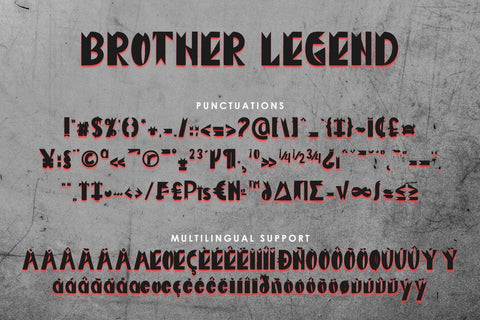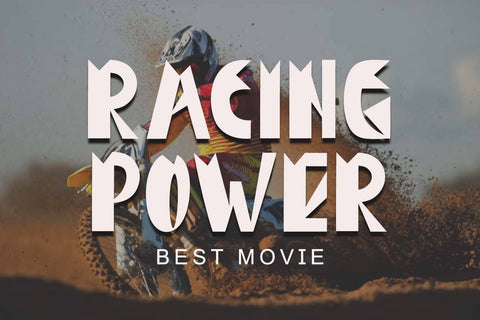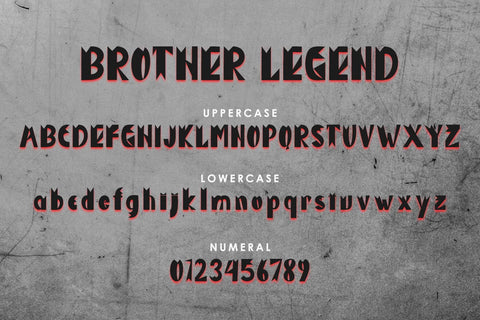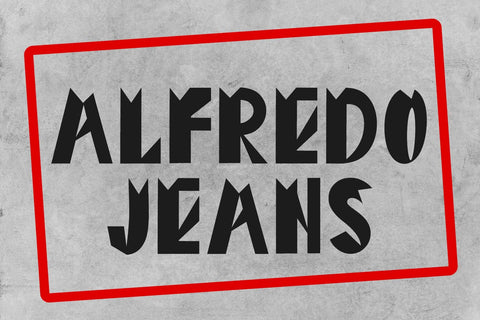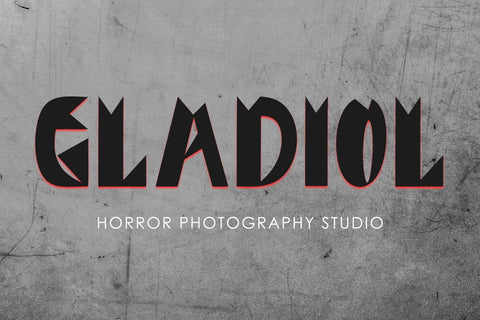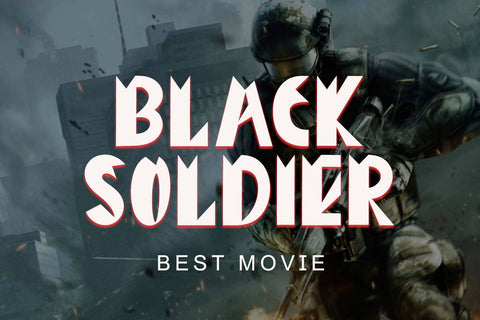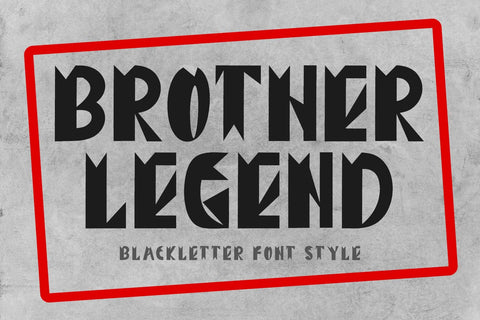
Brother Legend
"Brother Legend" is an elegant blackletter font. It comes with capital letters, lowercase letters, numbers, punctuation, and multilingual support. Perfect for Halloween, Christmas, banners, branding, music concerts, movie titles, action movies, book titles, logos, product branding, stickers, and more.